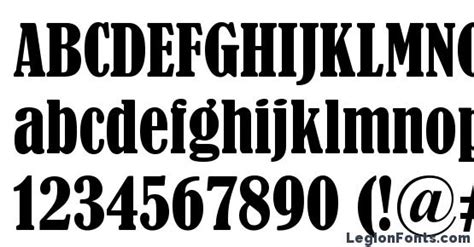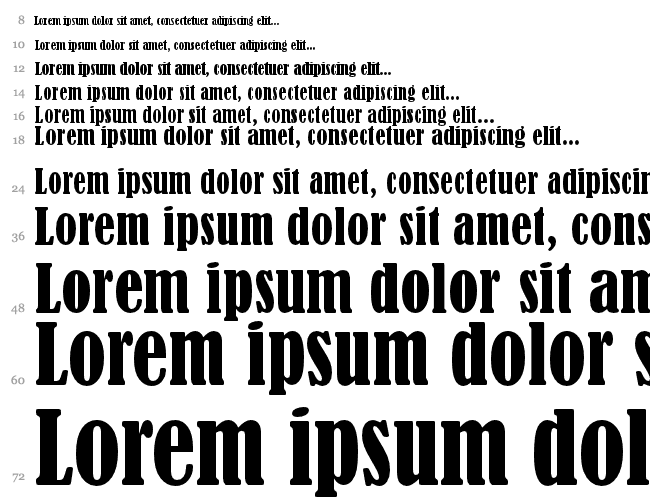
Bernard Mt Font
Bernard Mt Font - Web the monotype bernard condensed font offers many display applications where warmth and friendliness is required. Web monotype bernard std condensed. Web monotype bernard font family was designed by monotype studio and published by monotype. ← back to family page.